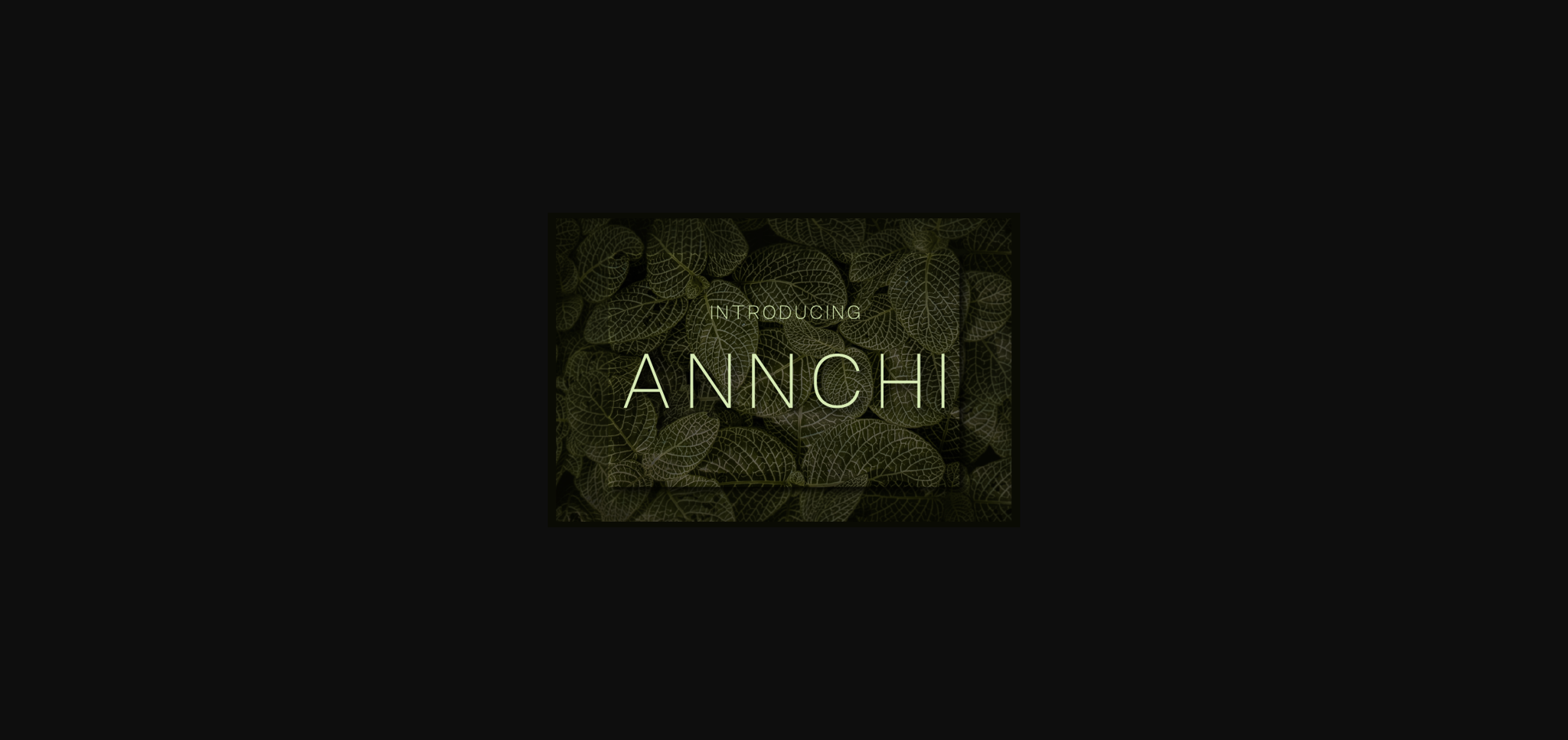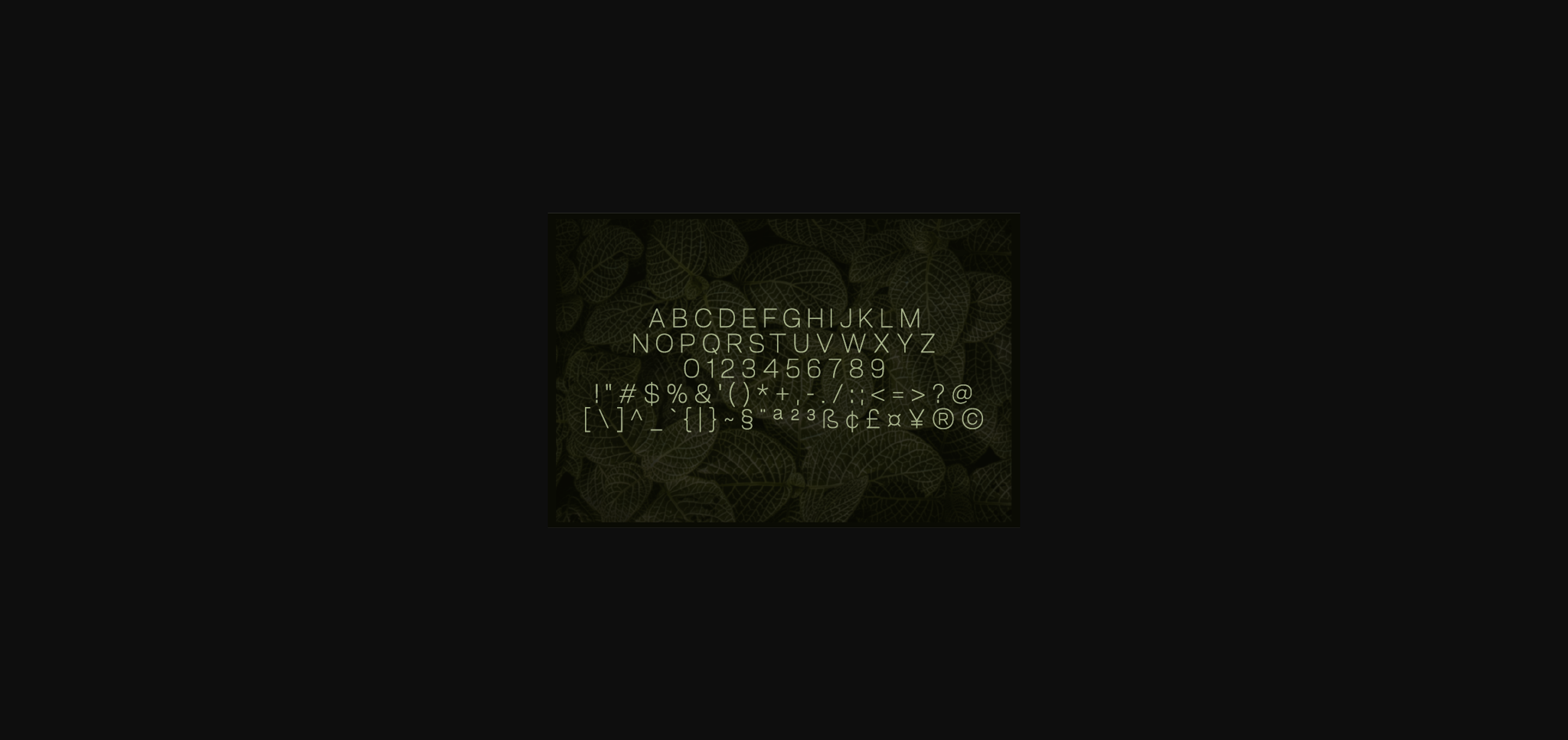
About Annchi Font
Annchi is a simple and elegant sans serif font with an undeniably clean feel. With its neat and beautiful arrangement of letters, this typeface will look outstanding in both formal and non-formal designs.